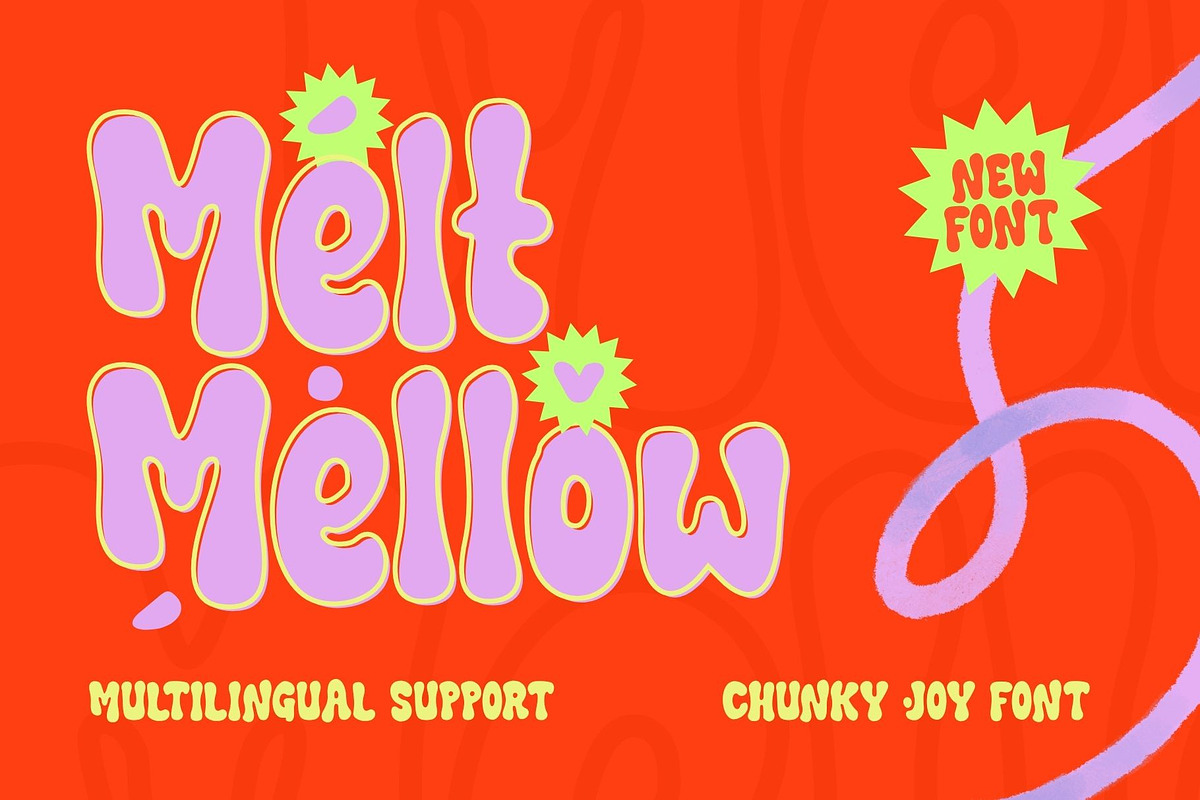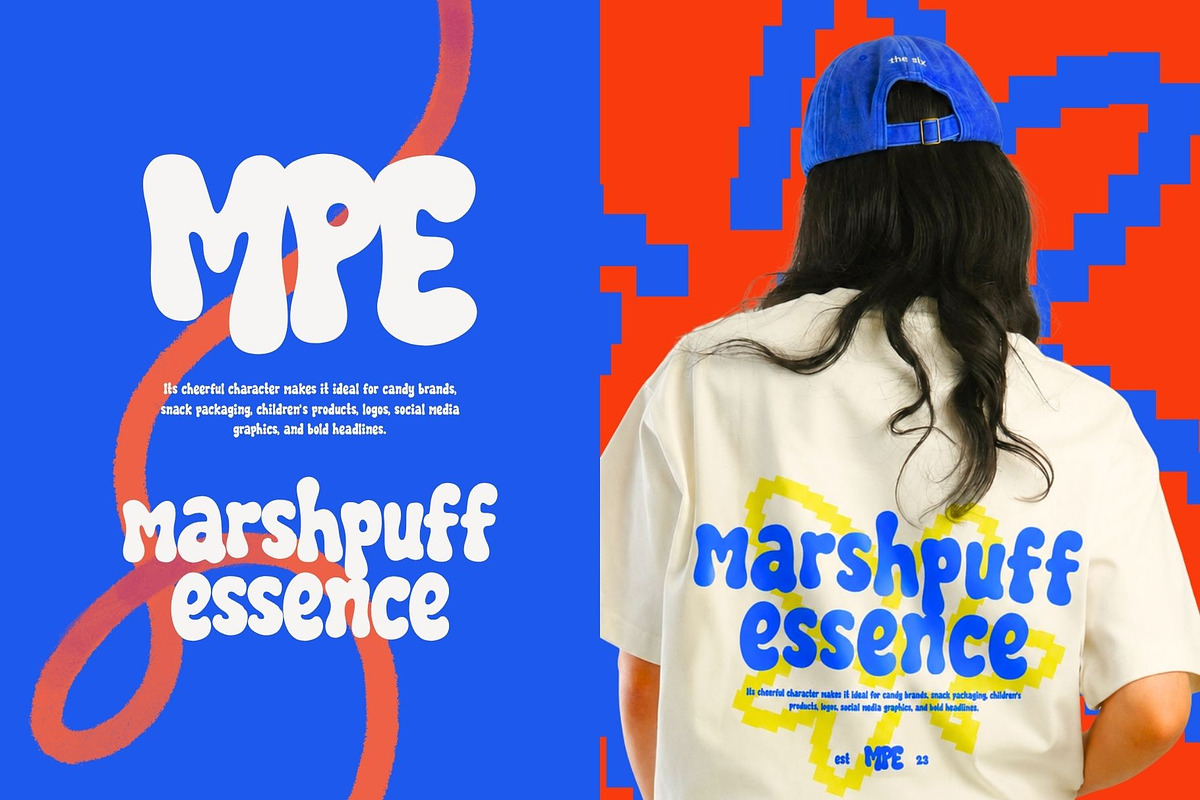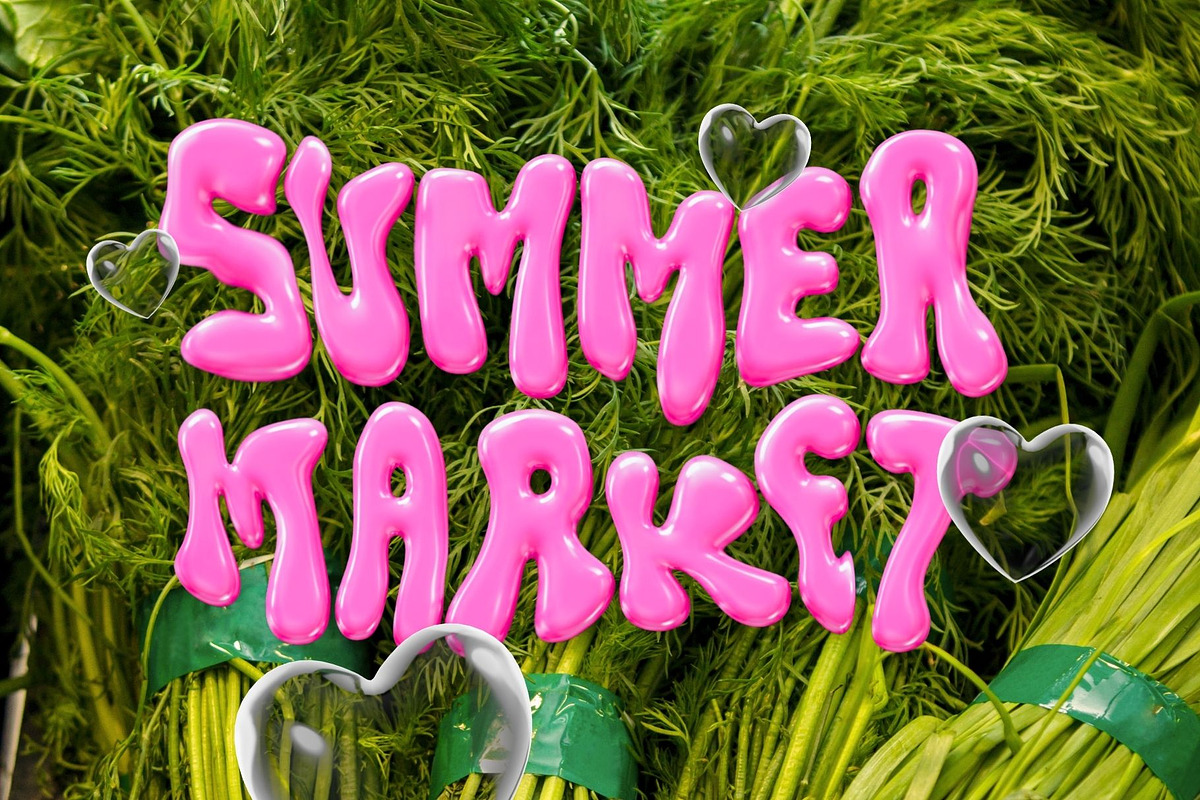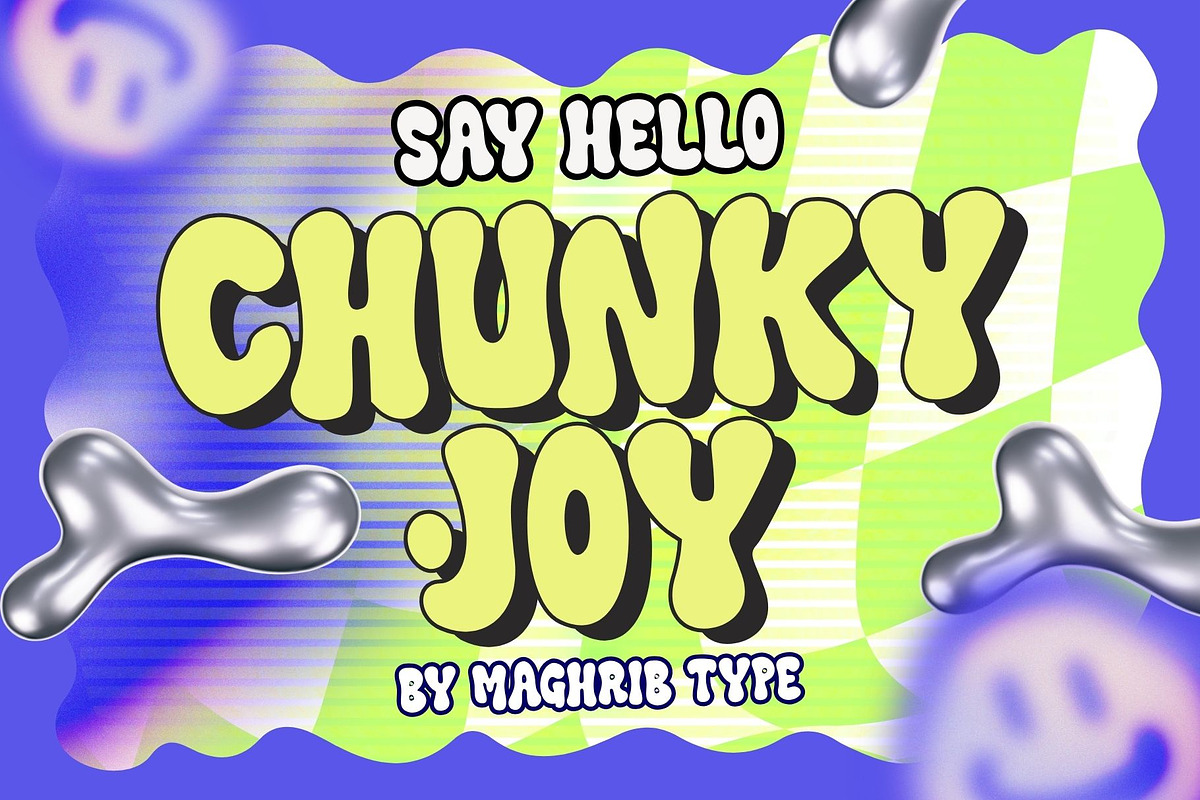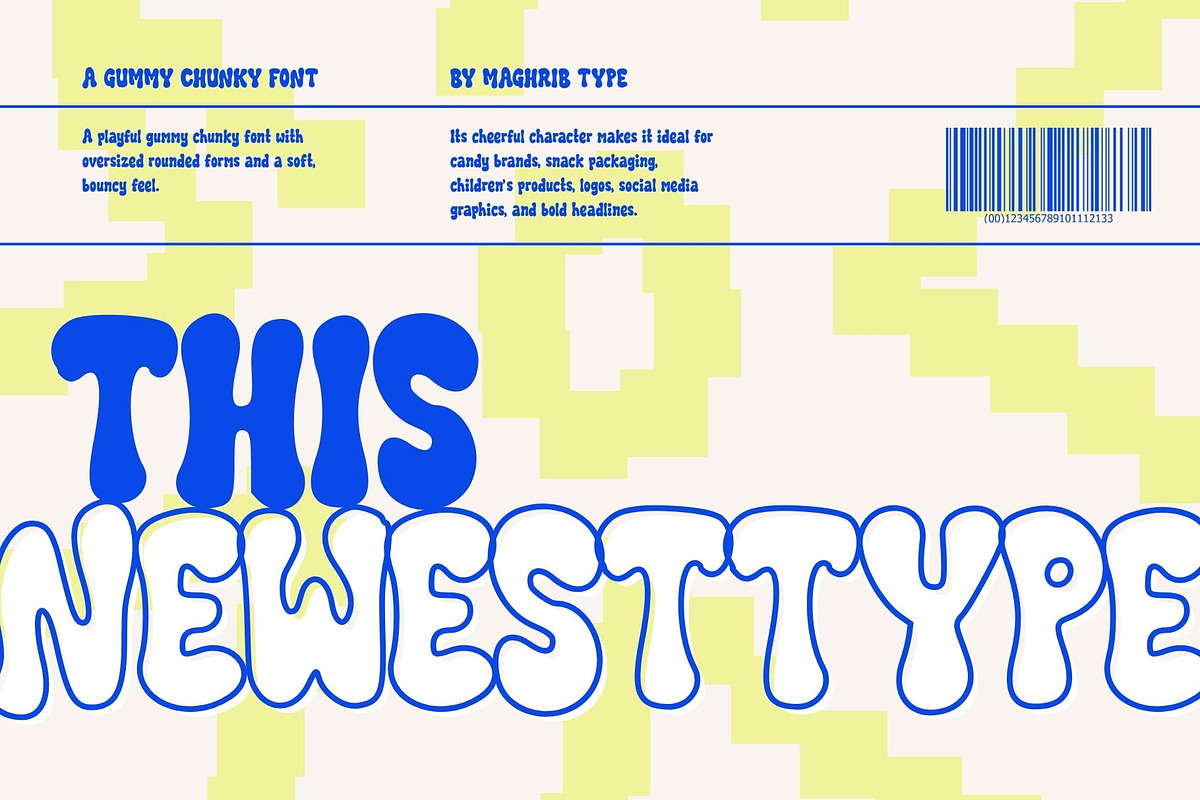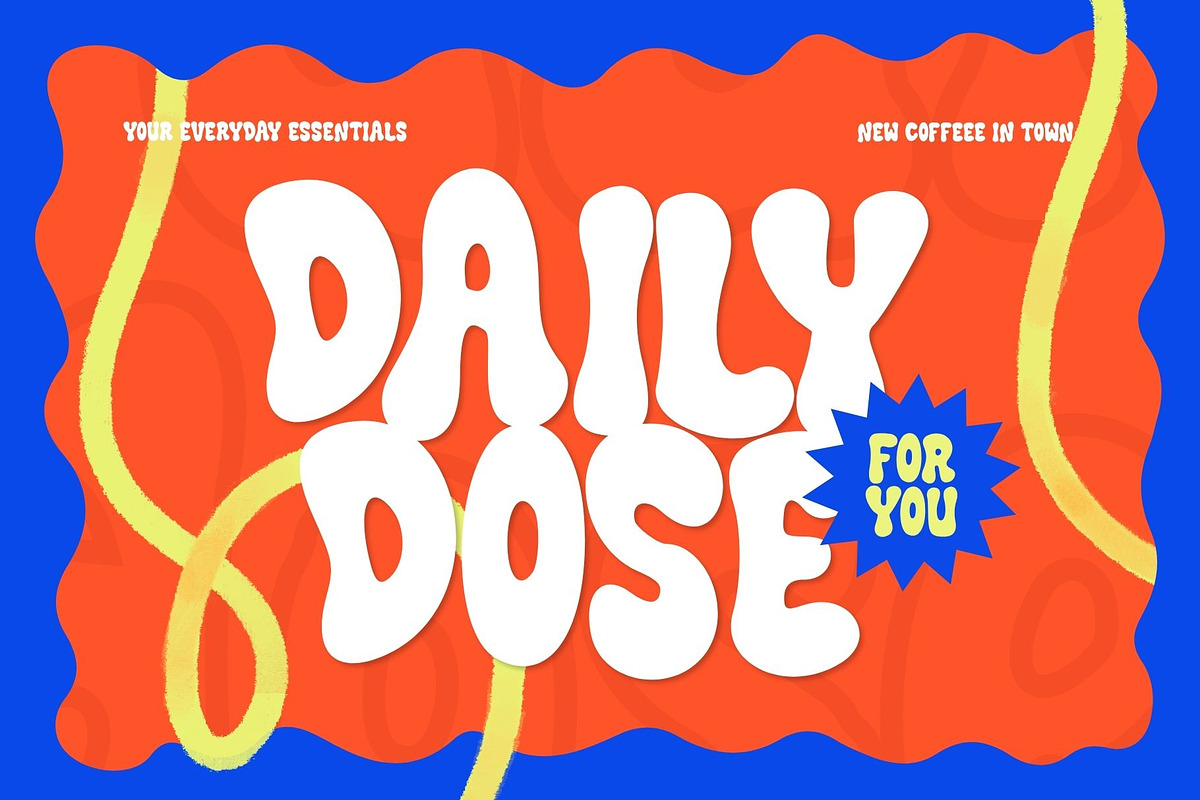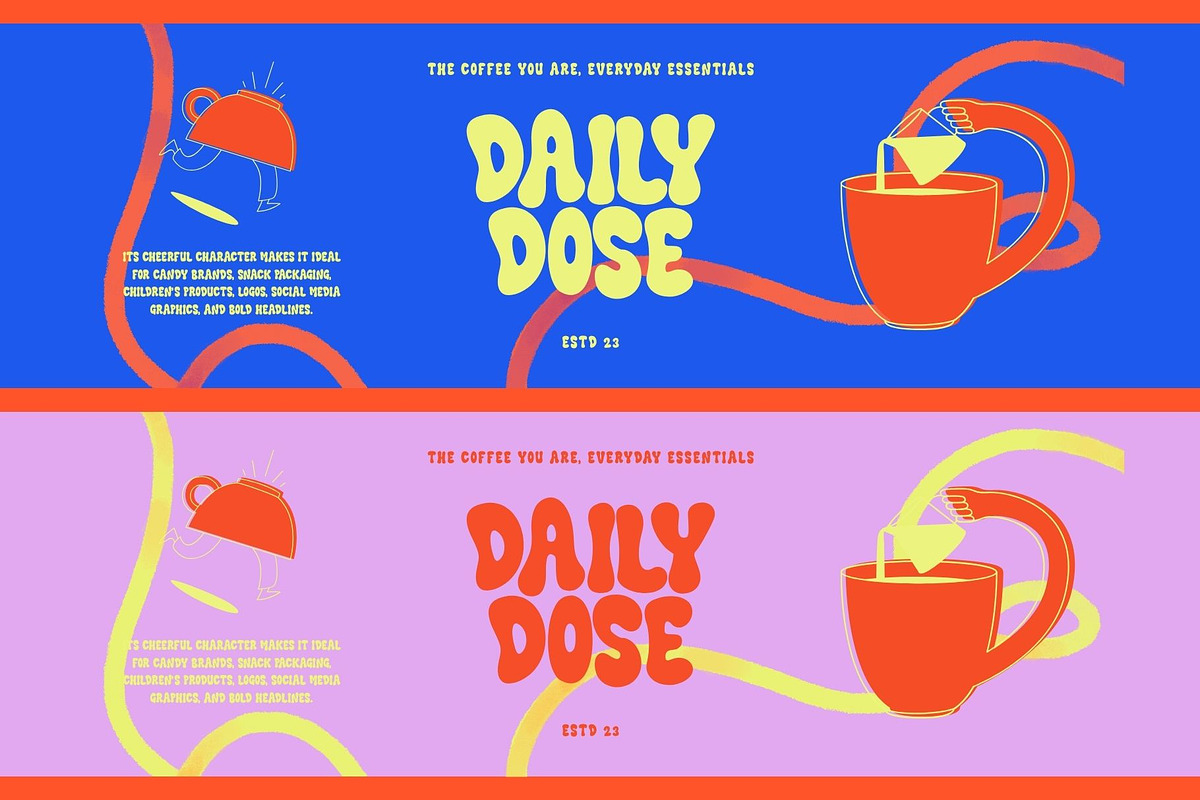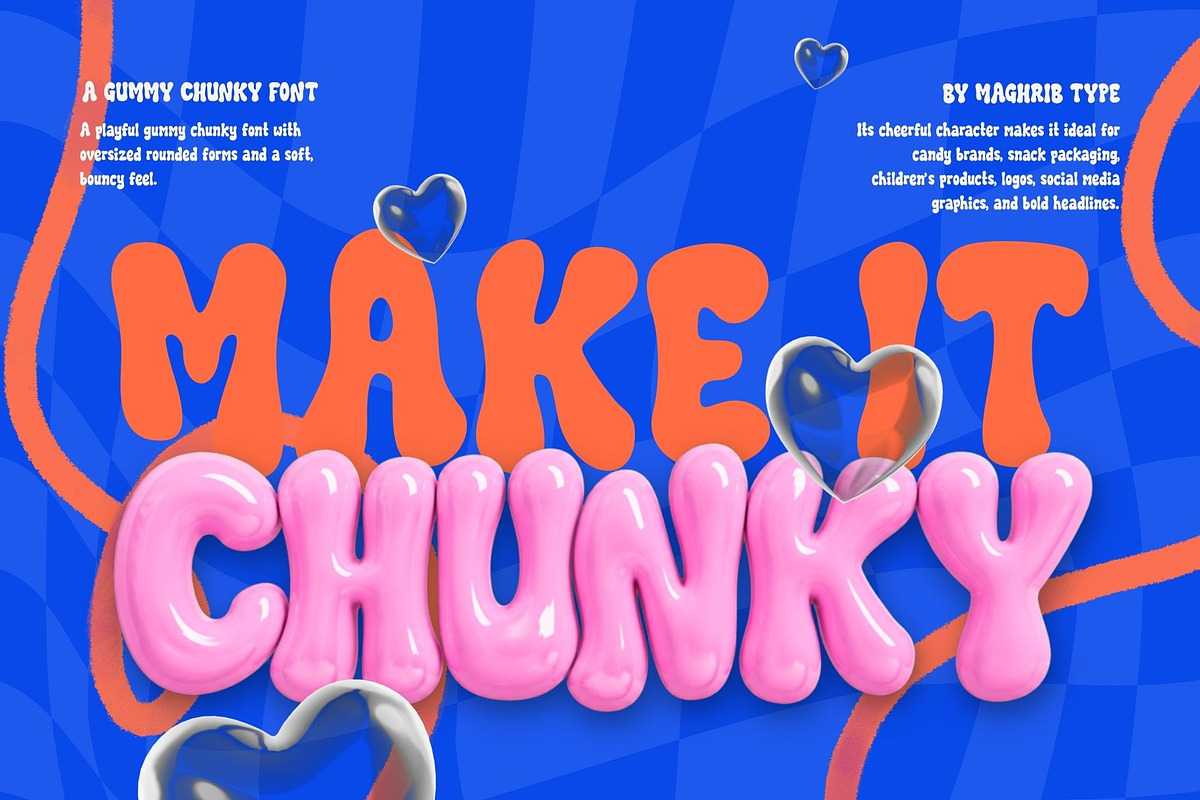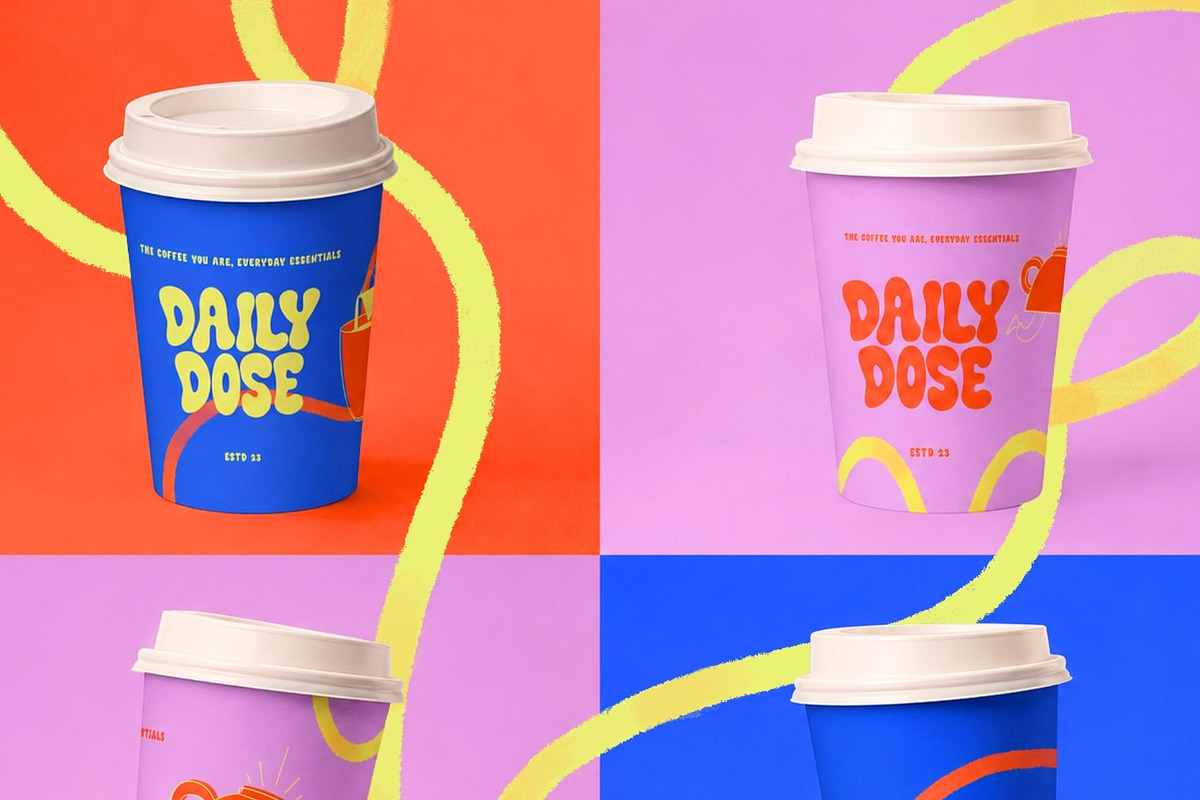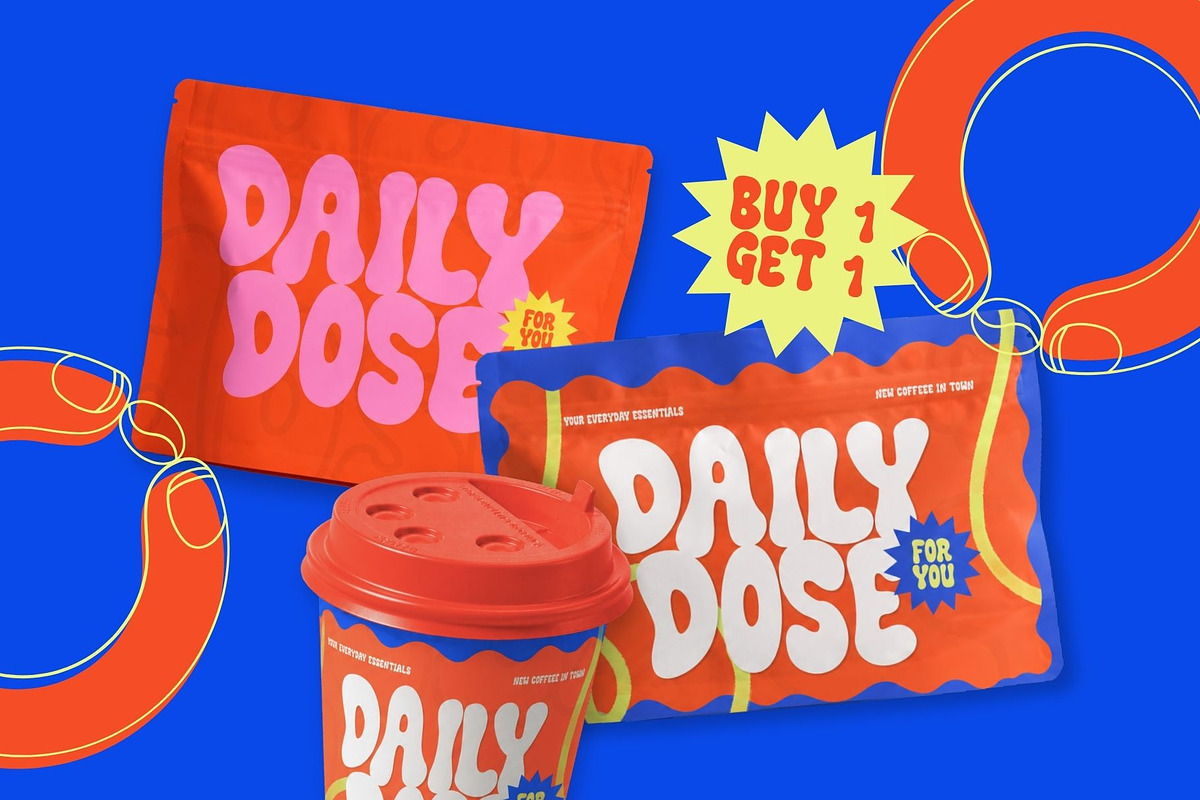
Chunky Joy
Chunky Joy is a cheerful hand-drawn bubble display font created to bring bold personality and irresistible charm to every design. Featuring chunky rounded letterforms, playful curves, and an organic handcrafted feel, this font delivers a fun, youthful vibe that's perfect for modern branding and eye-catching headlines.
Designed with a friendly and energetic character, Chunky Joy works beautifully for food branding, packaging, posters, social media graphics, logos, children's products, cafés, ice cream shops, candy brands, streetwear, stickers, and creative projects that need a joyful touch.
Every letter is carefully crafted with an imperfect hand-drawn aesthetic, making your typography feel authentic, approachable, and full of life.
Food & Beverage Branding
Ice Cream & Candy Packaging
Café & Restaurant Menus
Posters & Headlines
Children's Products
Merchandising
Stickers
YouTube Thumbnails
Event Promotions
Fun Editorials
Greeting Cards
Creative Branding
Handcrafted Look
Bold Bubble Style
Perfect for Display & Headlines
Bring happiness into your typography with Chunky Joy, the playful bubble font made to make every design smile.